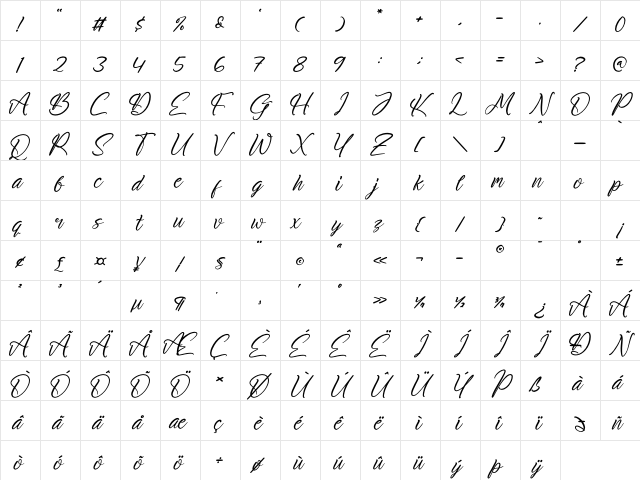
Martinez Gauttaro Regular Free Font
Martinez Gauttaro Regular
Design Context for Martinez Gauttaro
Martinez Gauttaro is a composed and adaptable typeface that performs quietly and consistently across a wide range of design contexts.